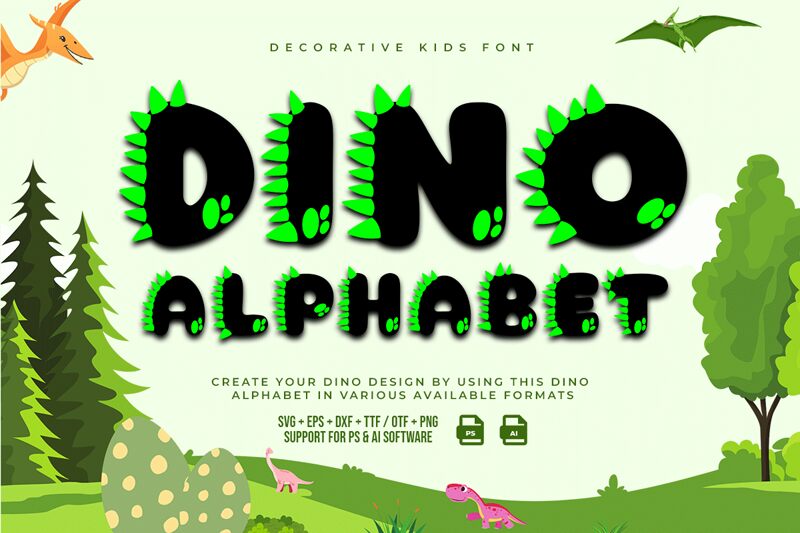
Dino Alphabet New font by Kong Font is a remarkable free decorative font willing to impress many admirers. It gives the impression of containing little dinosaur graphics and elements within the letters which is a cute touch that conveys a lot of fun. This font looks fresh and new, and it adds a playful spirit where implemented and observed.
They are perfect for anything related to children including toy packaging, book covers, store or bedroom signboards, and more. Use them in games for any display texts from titles to menus and in other visual elements to fully capture kids’ attention. Whatever your ideas may be, children deserve the best!